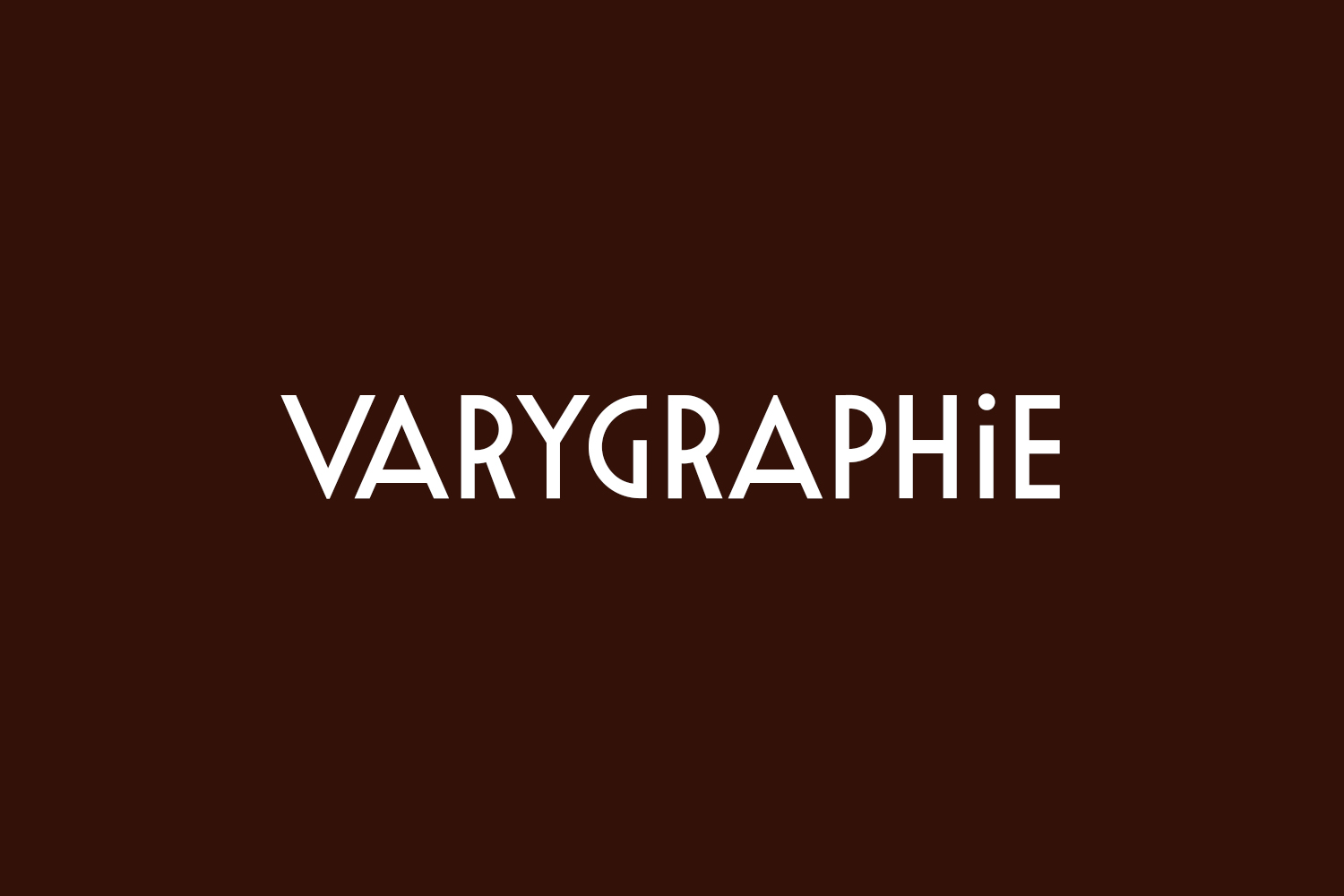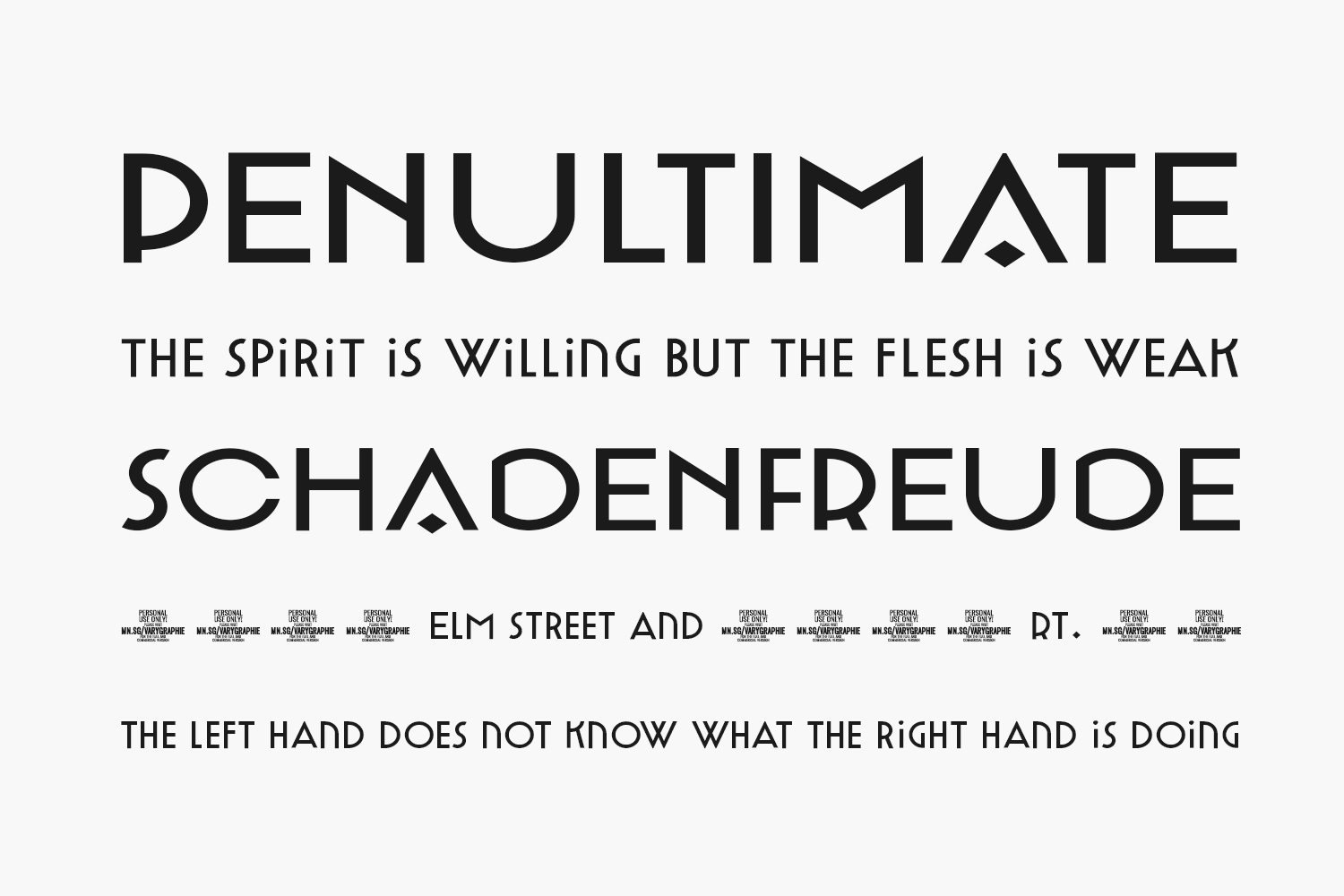
Varygraphie Free Font Family is a typographic masterpiece that harks back to the golden age of retro design. This font is a visual feast for the eyes, with its intricate and detailed letterforms that evoke the glamour and style of a bygone era. Its unique and eye-catching appearance makes it the perfect choice for designers who want to add a touch of vintage charm to their work.